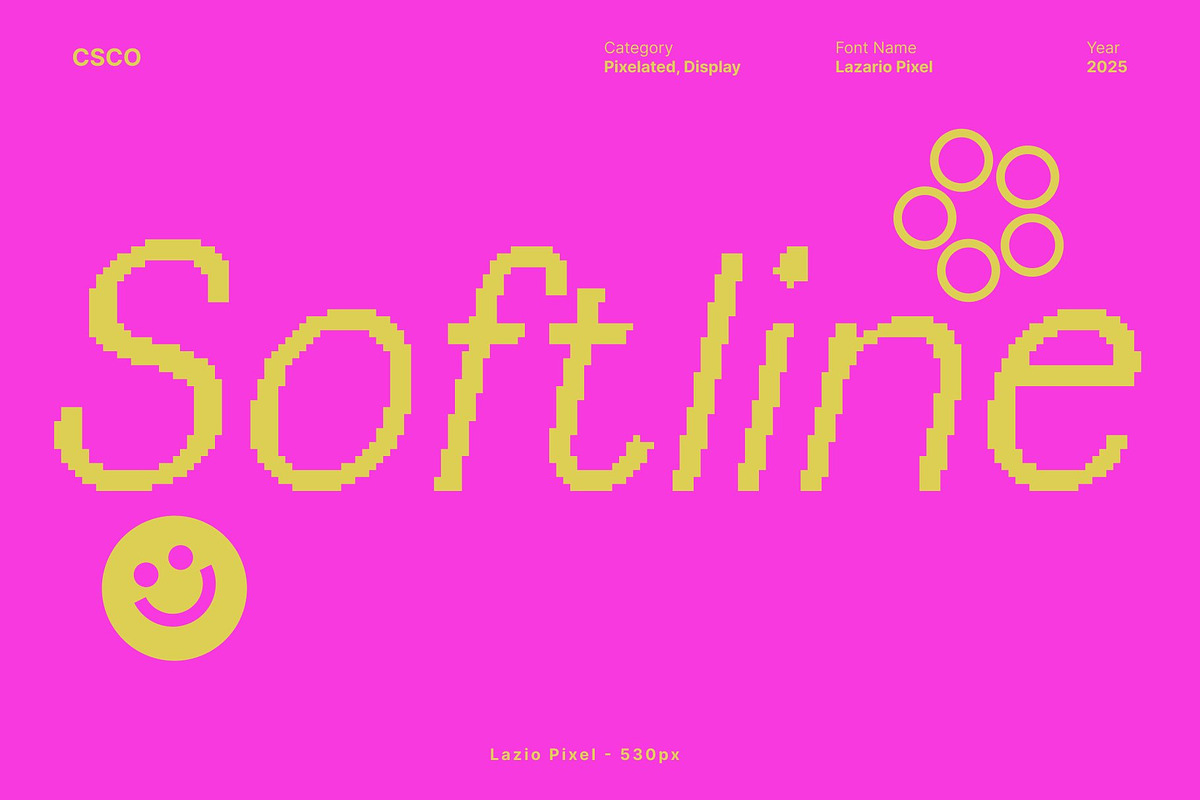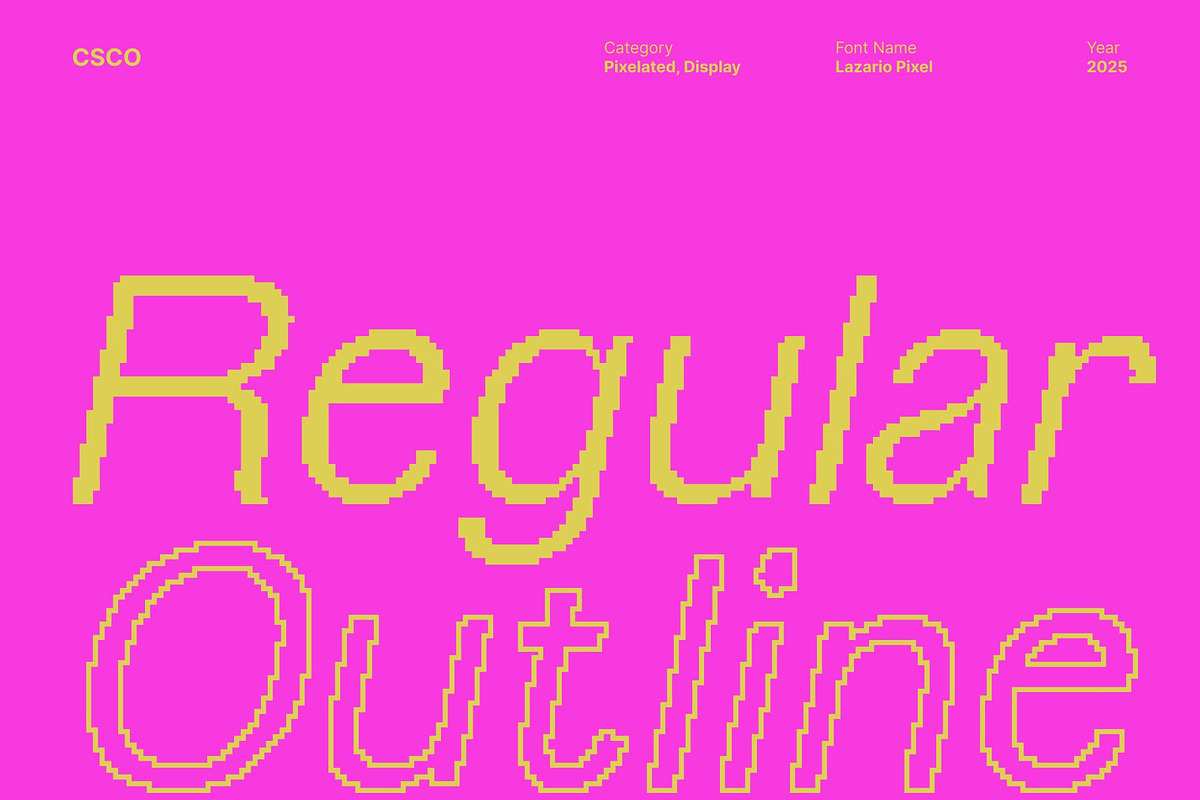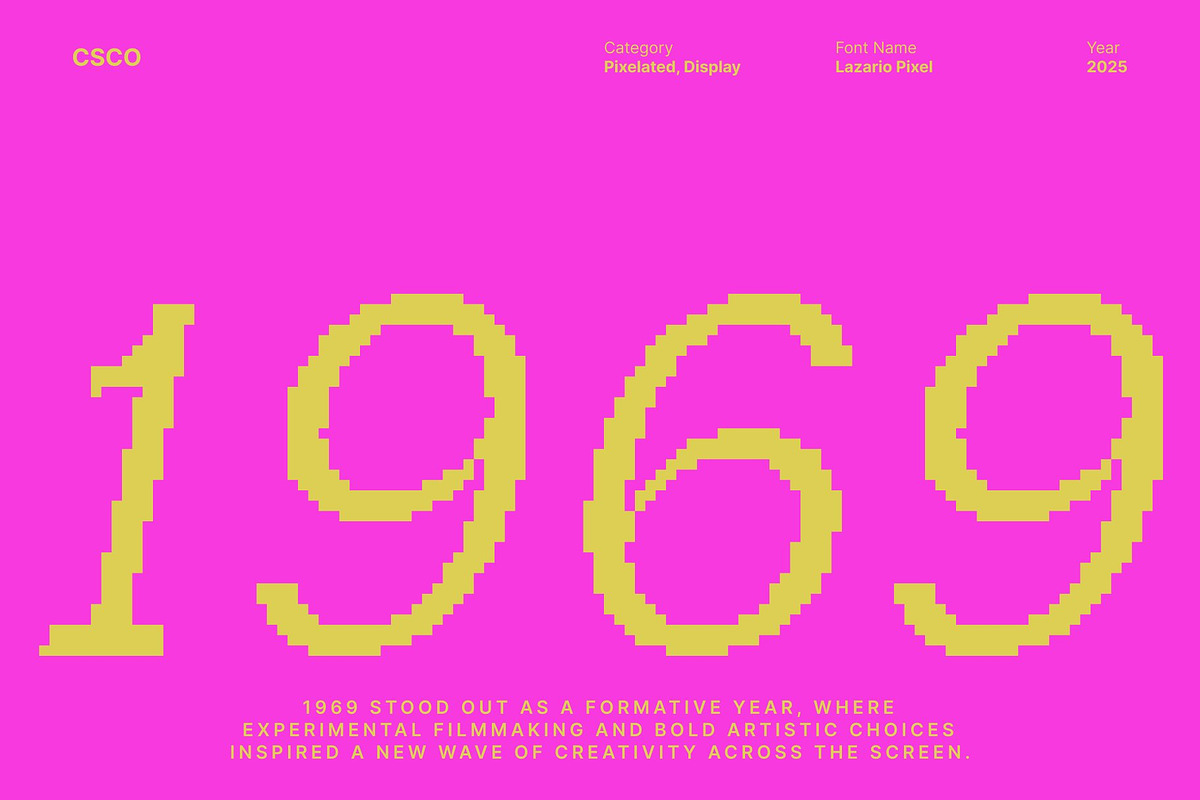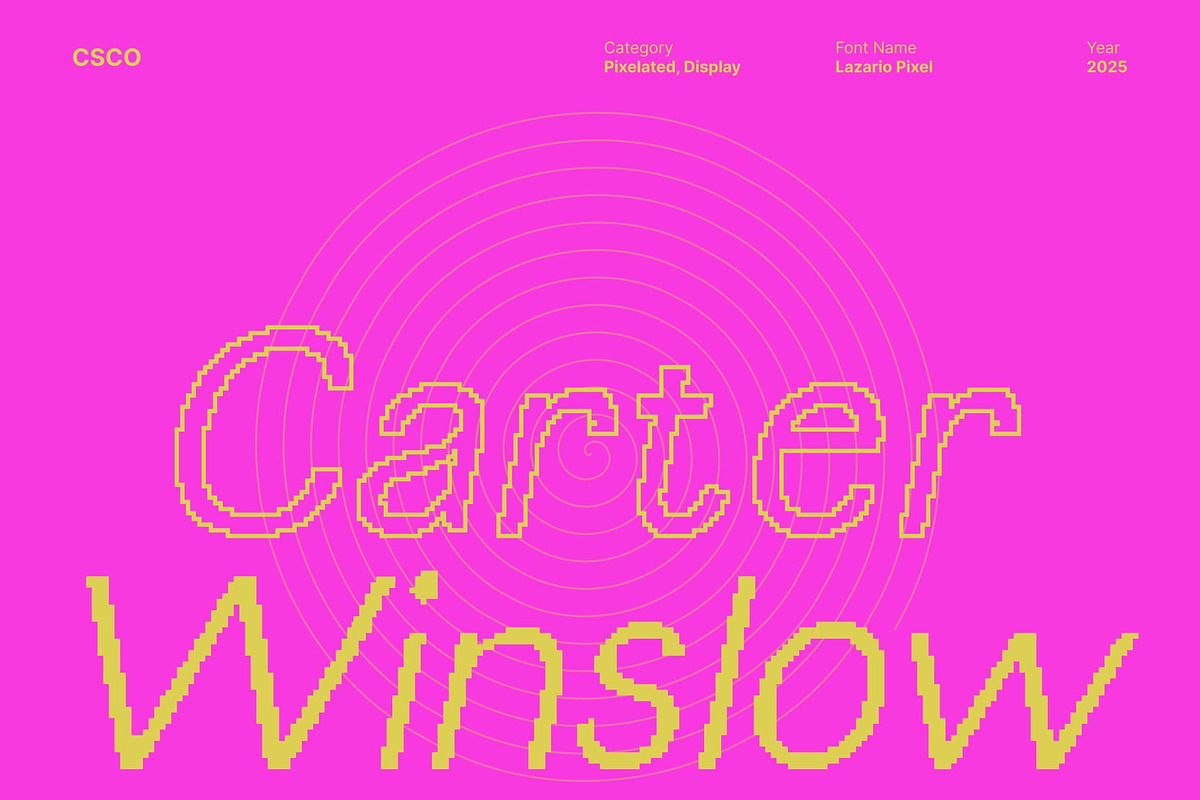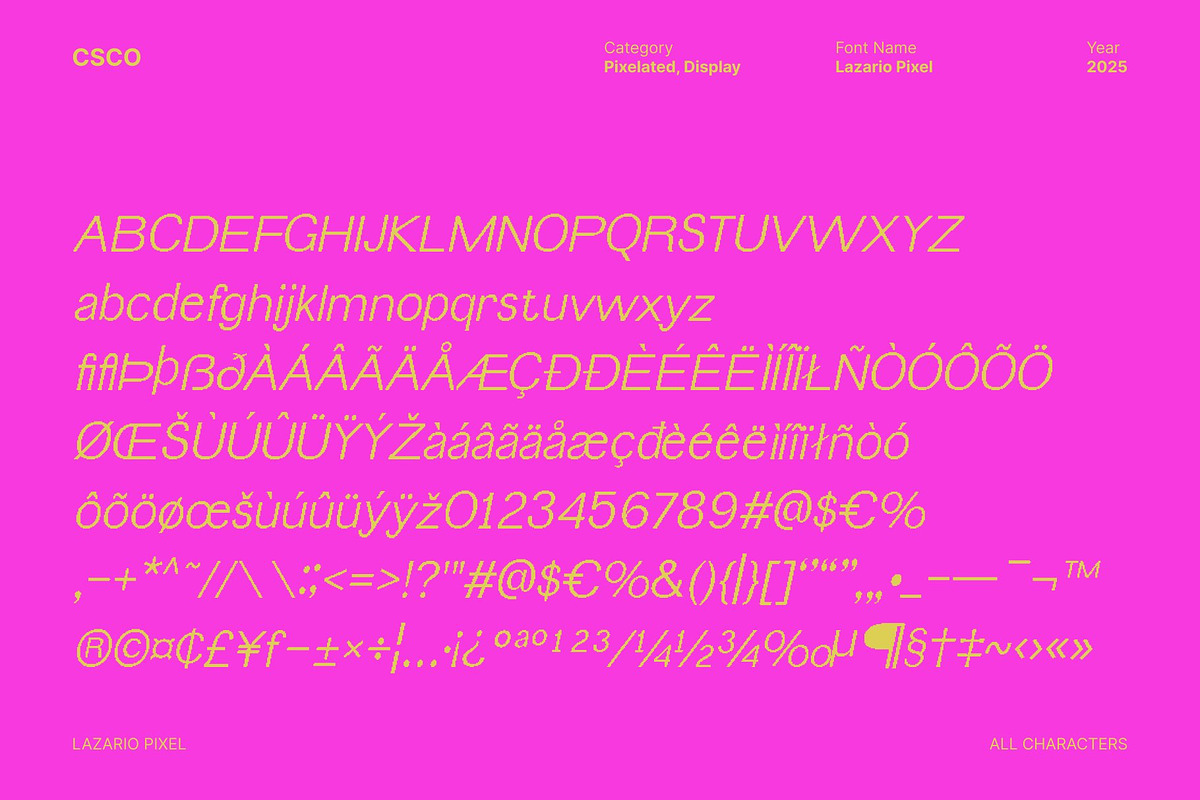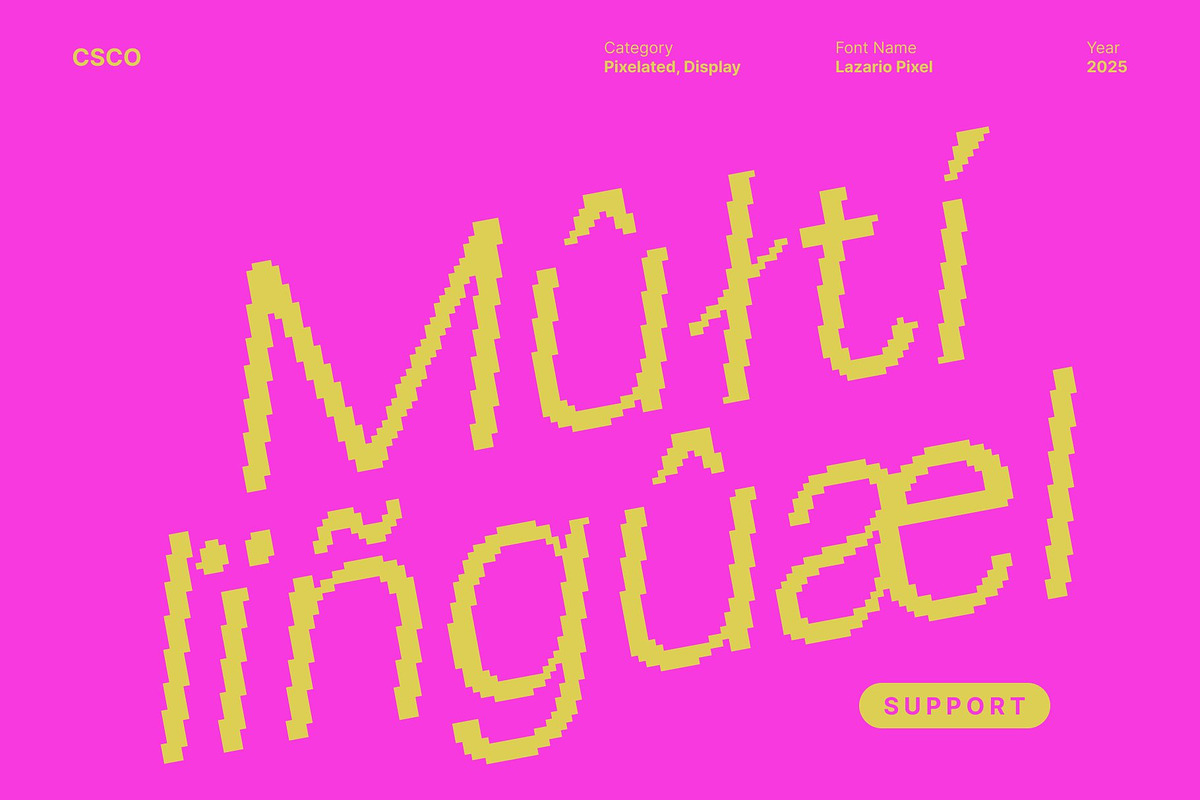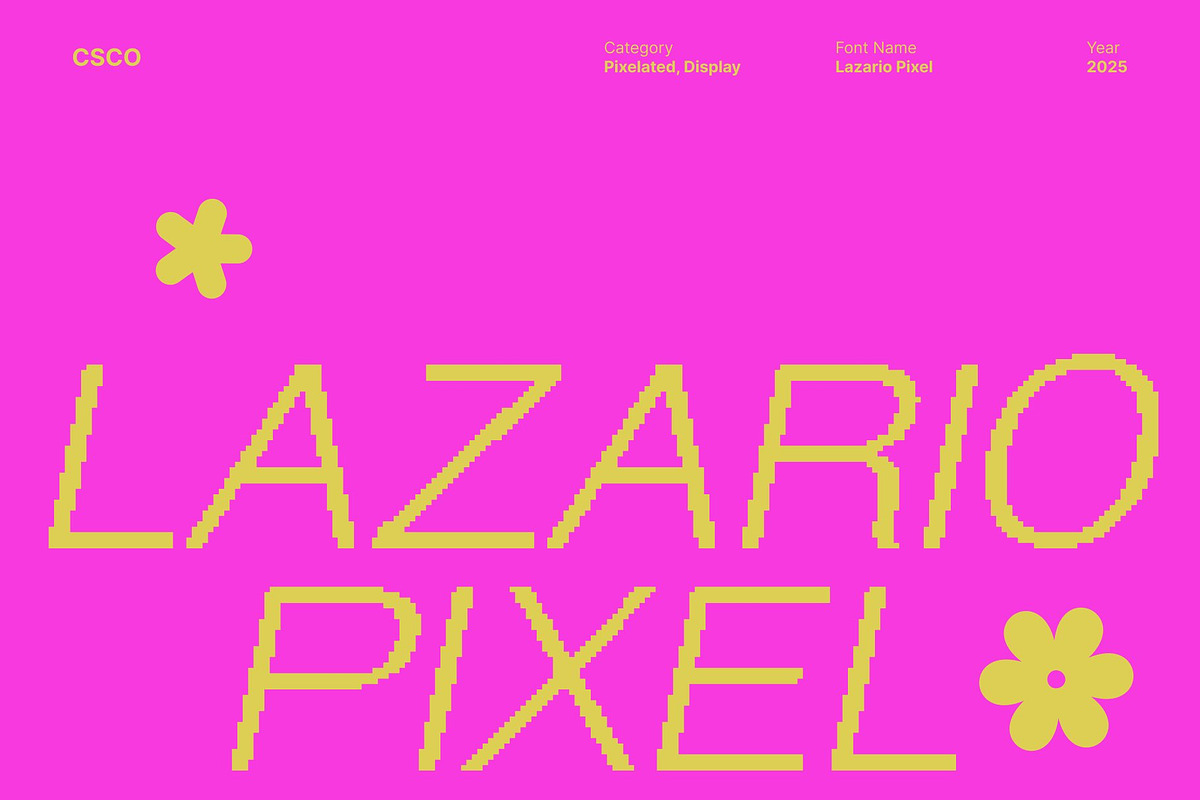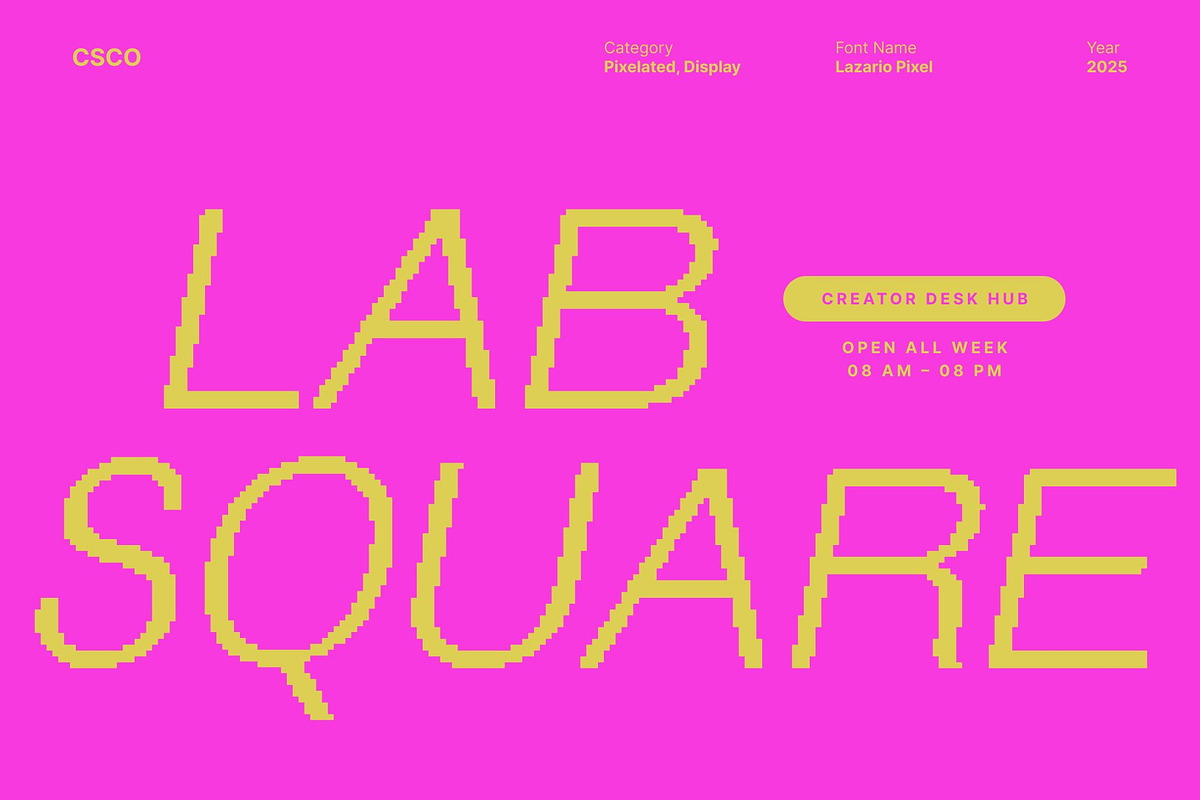
Lazario Pixel
Lazario Pixel – Geometric Sans Serif Display Font with Digital Precision
Modern Geometry with Pixel Precision This is a geometric sans serif display font built with precise thin shapes and a clean, modern structure. Each character is carefully crafted to maintain clarity while embracing a distinct pixel style. This combination creates a font that is both stylish and functional, giving every design a sharp, digital-forward identity.
Thin Shapes for Professional Aesthetics Designed with exact thin strokes, brings a refined and professional look to any layout. Its delicate construction maintains readability while adding a sleek, minimalist touch. These thin forms work exceptionally well in designs that require subtle sophistication without sacrificing impact.
Pixel Style for a Digital, Modern Impression The pixel-inspired detailing adds a bold digital personality, giving your typography an unmistakable futuristic and tech-driven appearance. This visual texture enhances titles, logos, and graphics with a modern edge, making this font perfect for designers who want to communicate innovation and creativity through typography.
Versatile for Branding, Posters, and Editorials Whether you’re building a brand, creating posters, or designing editorial layouts, this font adapts effortlessly. Its geometric structure ensures strong visual hierarchy, while the pixel aesthetic adds uniqueness and character. Use it to craft dynamic headlines, distinctive logos, or captivating layouts that demand attention and deliver a consistent modern theme.